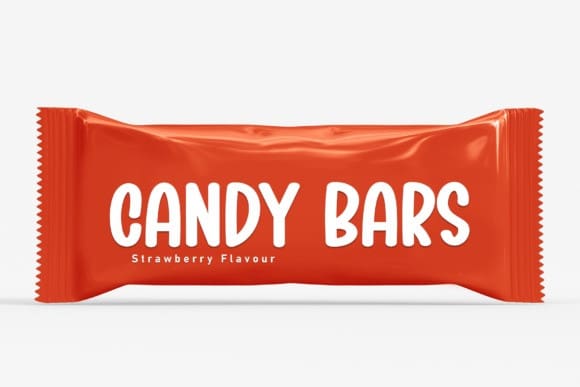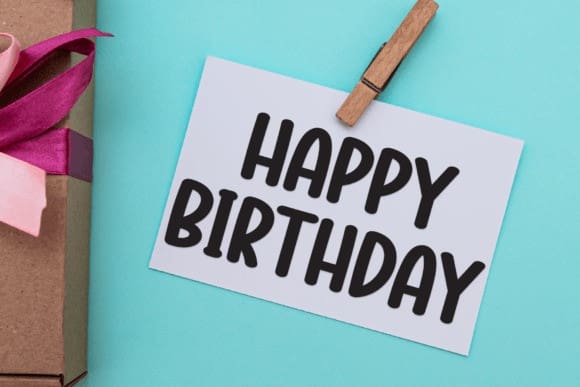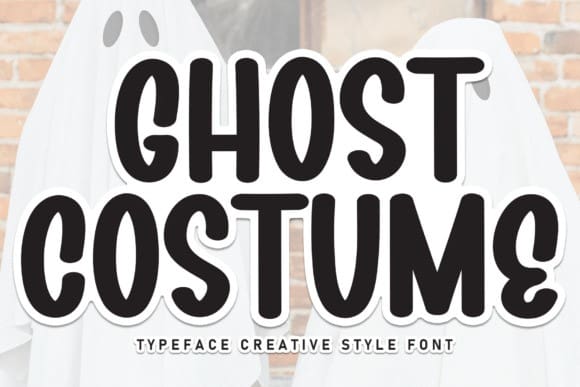
Ghost Costume Font
Ghost Costume is a lovely and timeless handwritten font. It is the best choice for creating eye catching logos, branding and quotes. Every letter has a unique and beautiful touch, which will make your design come alive!